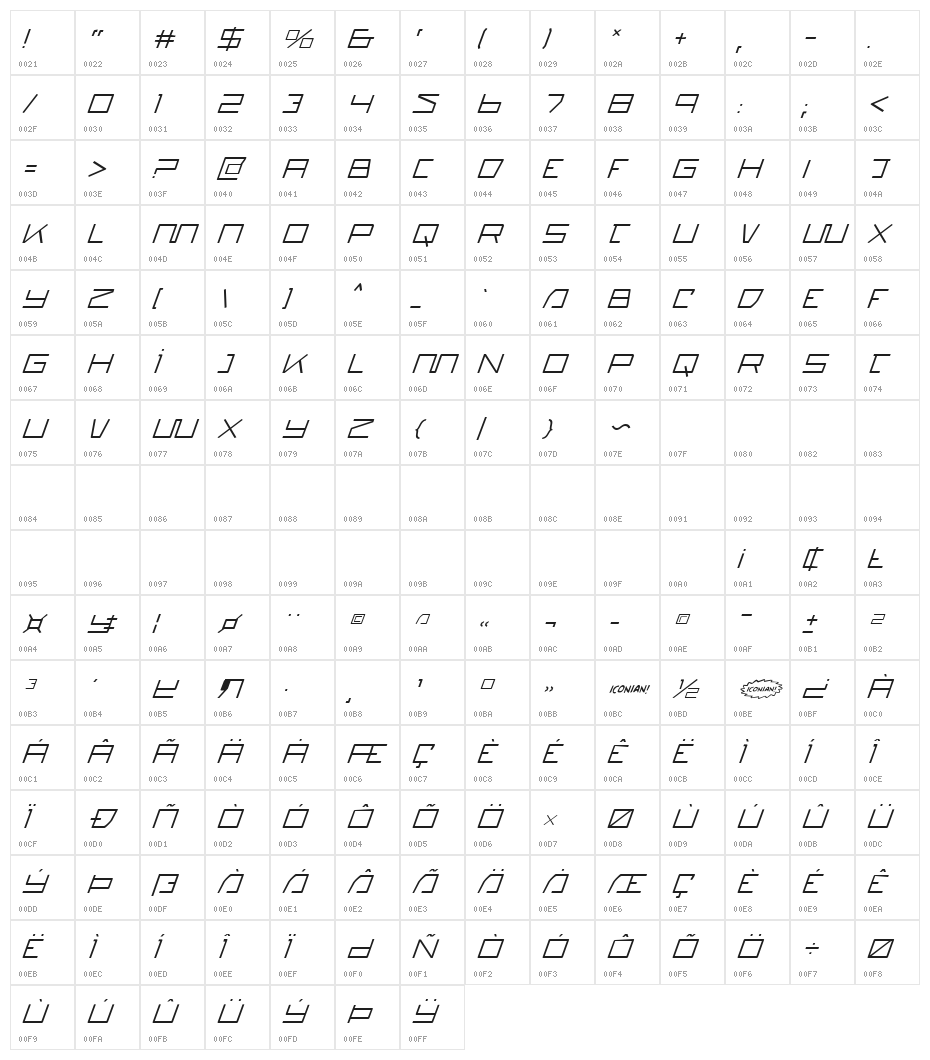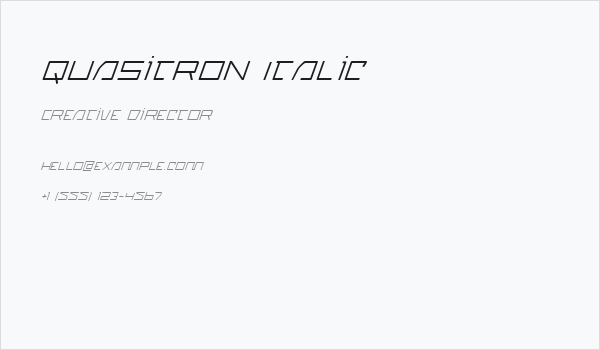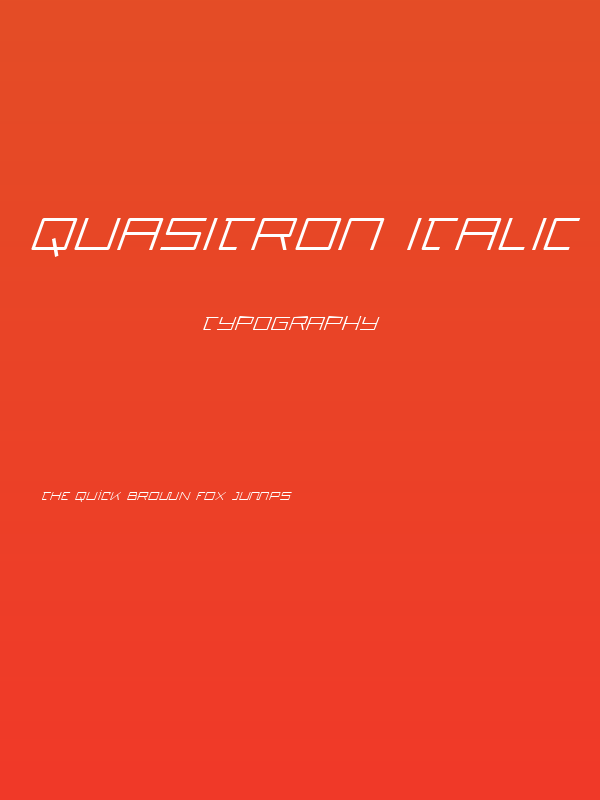
Quasitron Italic Font
Quasitron Italic Description
This font features a futuristic and angular design, characterized by its italicized and geometric letterforms. The characters are constructed with sharp angles and clean lines, giving it a sleek and modern appearance. The uppercase and lowercase letters maintain a consistent slant, enhancing the dynamic and forward-leaning style. Numbers and special characters follow the same angular aesthetic, ensuring uniformity across all glyphs. The overall look is both technical and stylish, making it suitable for projects that require a contemporary and cutting-edge feel.
| Proposed Projects | Ideal for technology branding, sci-fi themed designs, video game interfaces, and modern advertising campaigns. |